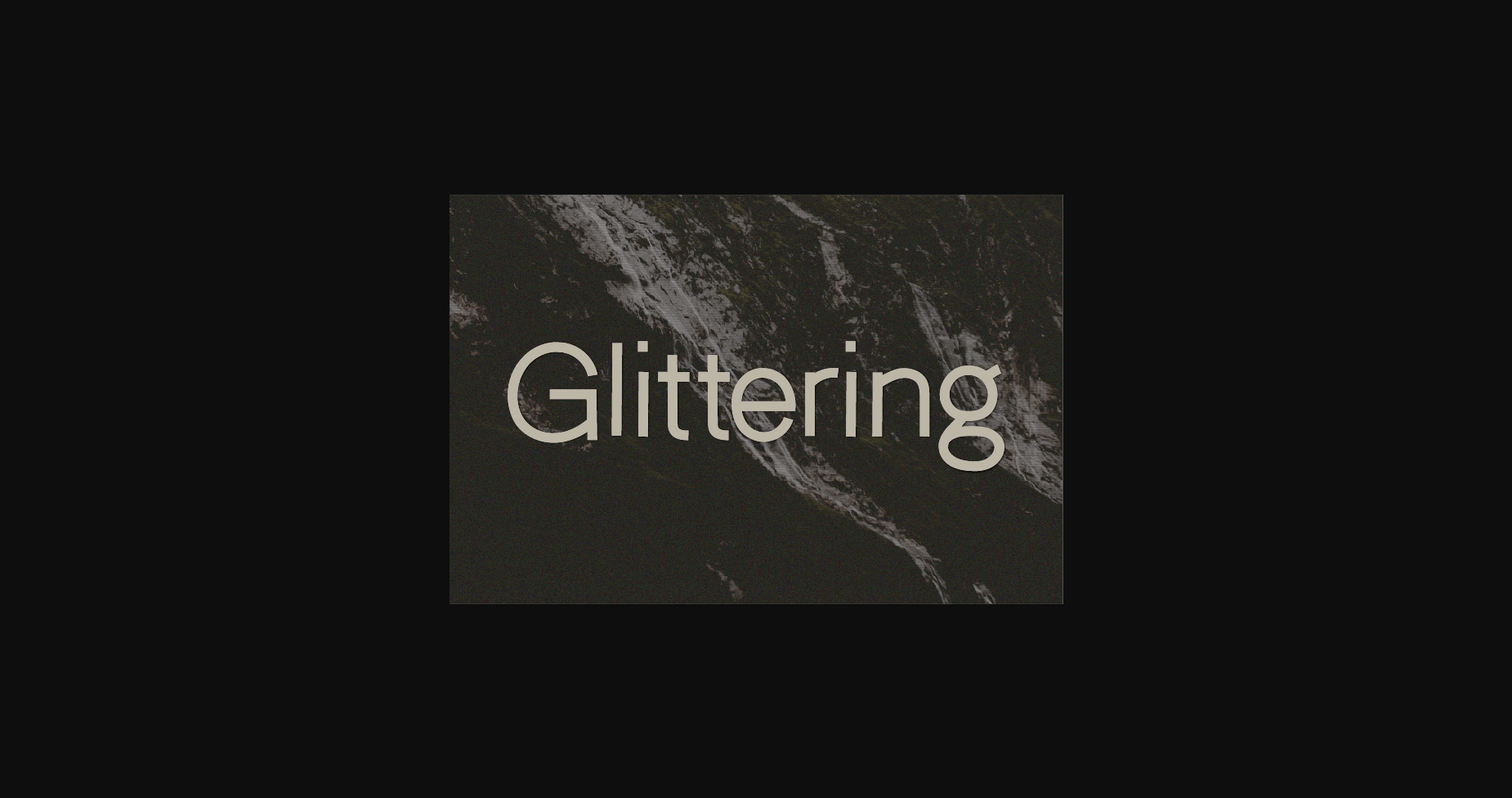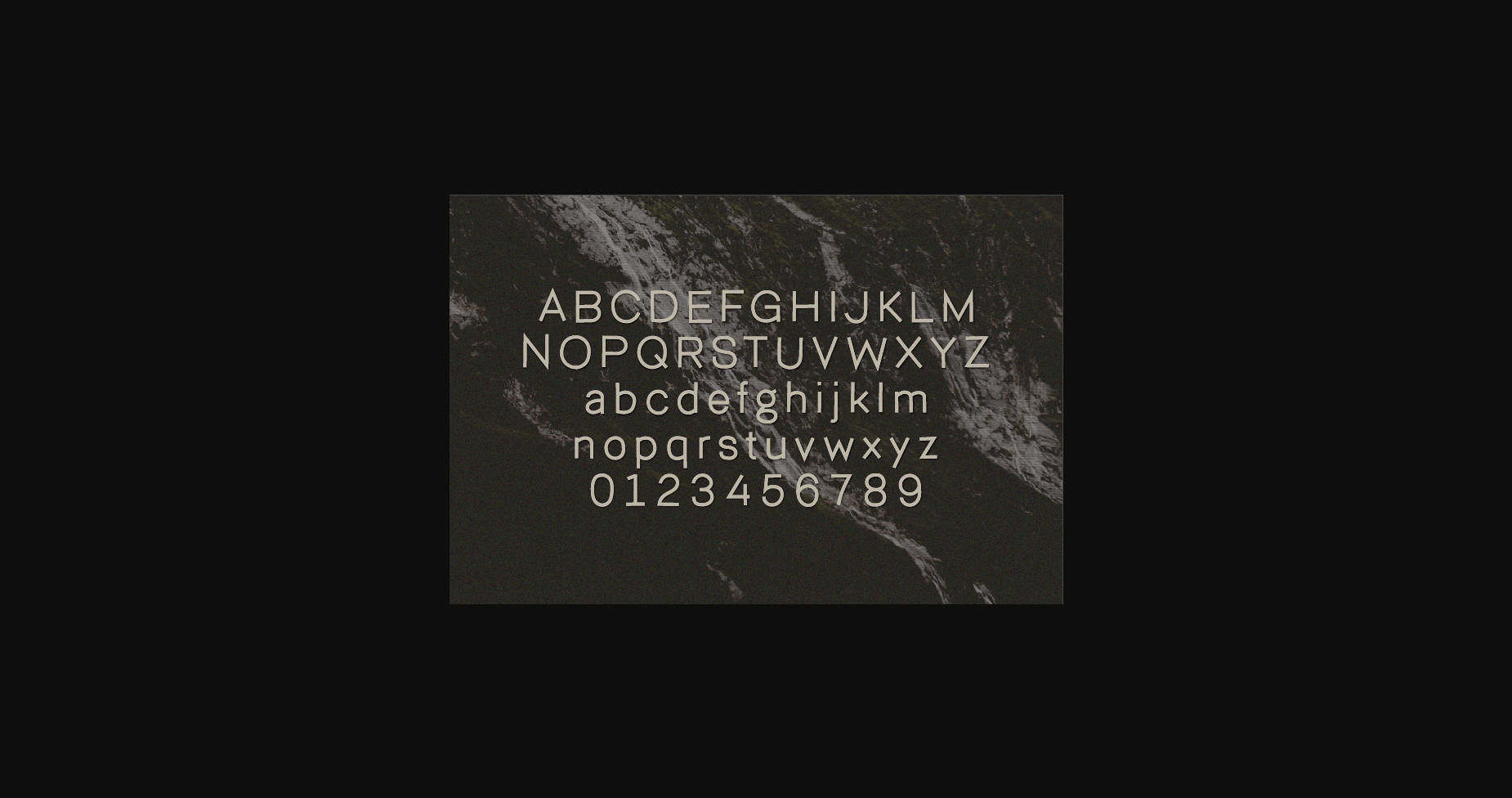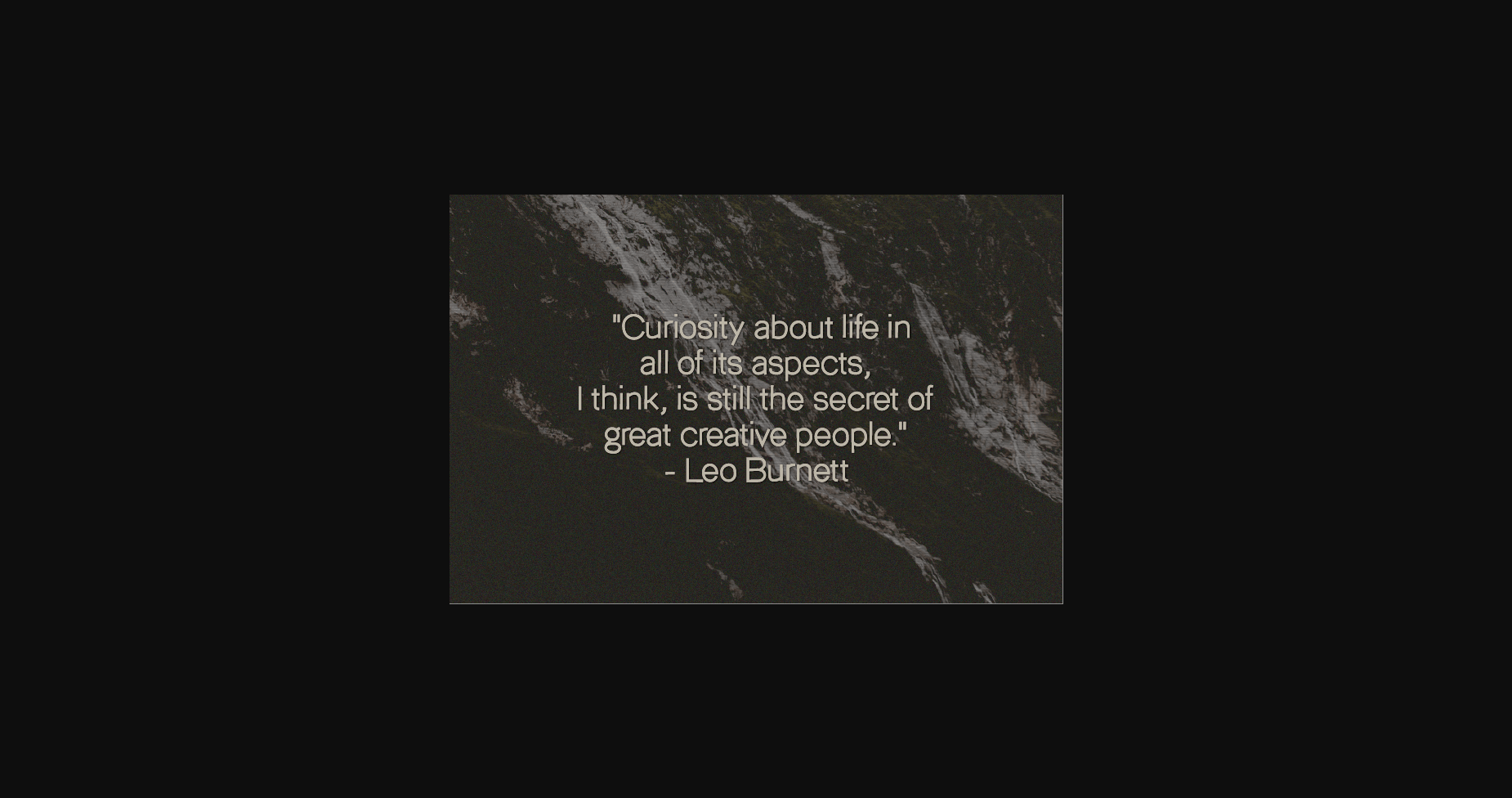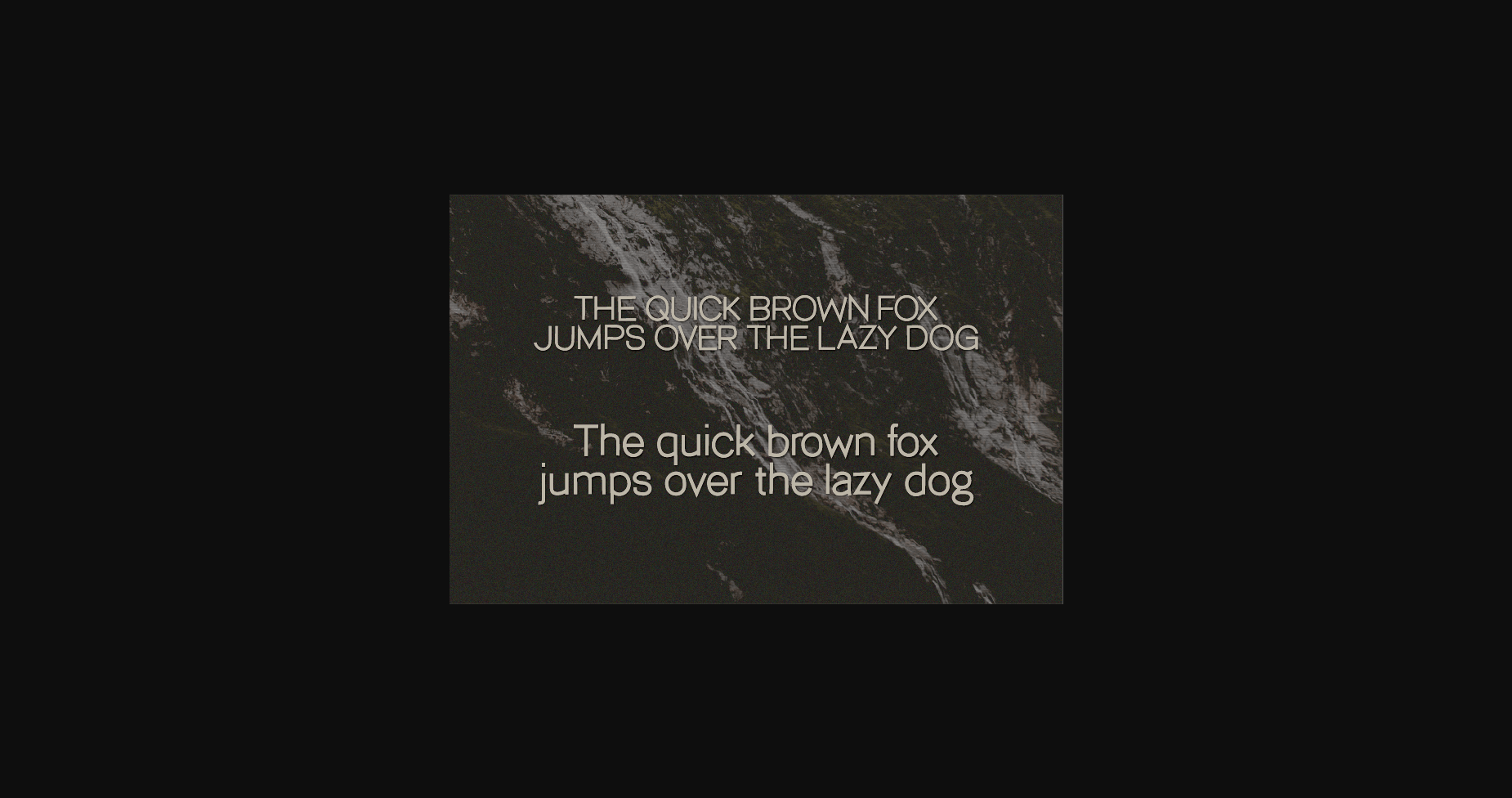
About Glittering Font
Glittering is a natural sans serif font made without changing a single node in each character’s indentation- this makes this font very interesting and unique. Perfect for quotes, notes, tees, and any product design.